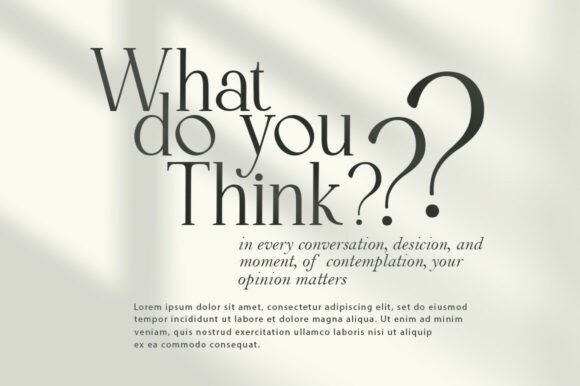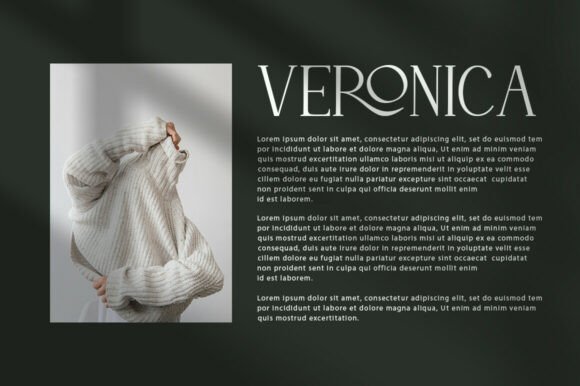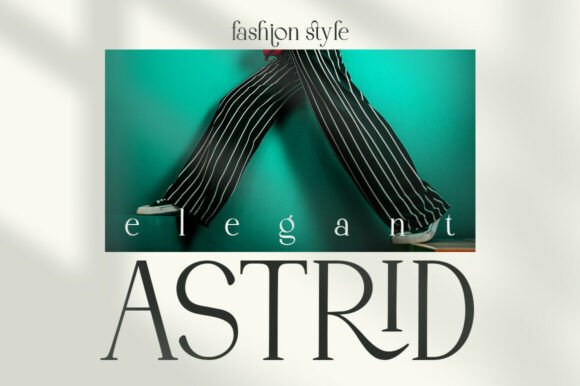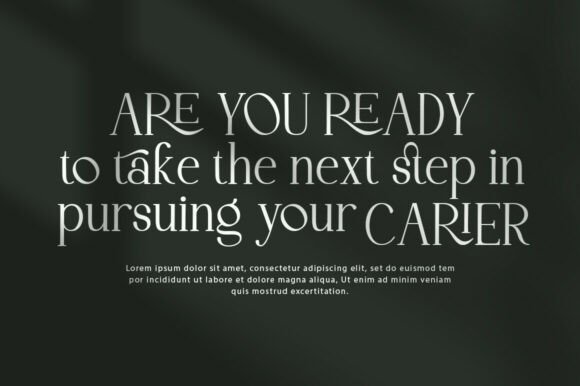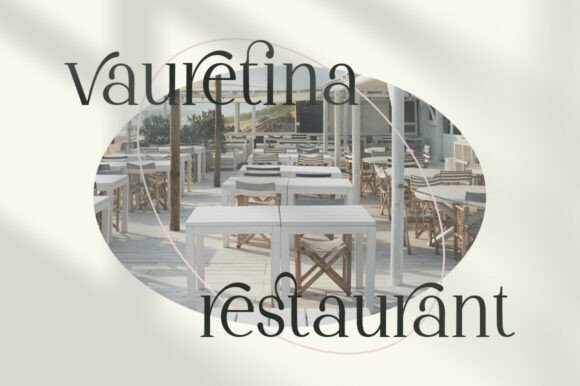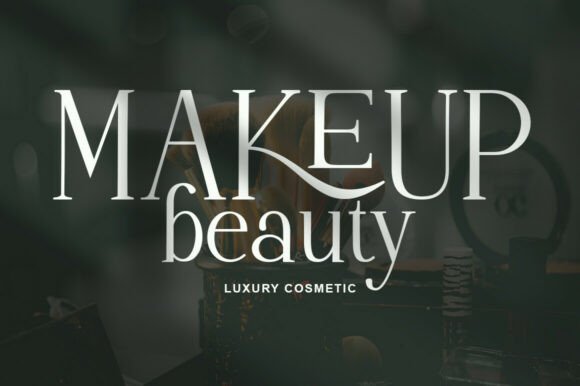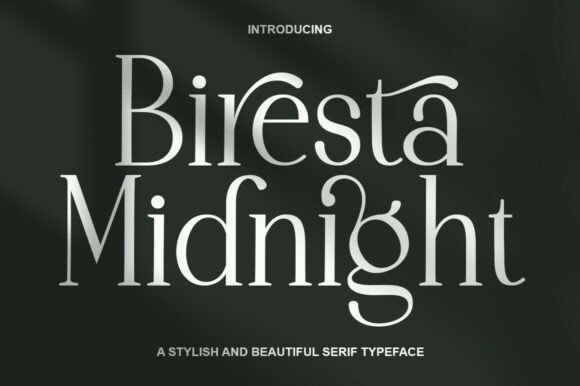
Introducing Biresta Midnight Font: A Timeless Serif Typeface
Are you a designer or crafter looking for a font that exudes elegance and sophistication? Look no further than Biresta Midnight Font. This beautiful and nostalgic serif typeface is perfect for adding a touch of class to any project. In this article, we’ll dive into the features and benefits of Biresta Midnight Font, and explore how it can elevate your design work.
A Beautiful and Nostalgic Serif Typeface
Biresta Midnight Font is a stunning serif typeface that boasts a unique blend of classic and modern elements. Its nostalgic feel makes it perfect for projects that require a touch of vintage charm, while its clean lines and precise curves ensure it remains legible and versatile. Whether you’re working on a logo, title, or body text, Biresta Midnight Font is sure to impress.
Stunning in Both Large and Small Sizes
One of the standout features of Biresta Midnight Font is its ability to look stunning in both large and small sizes. Whether you’re using it as display text or body text, this font remains clear and legible, making it perfect for a wide range of applications. From headlines and titles to paragraphs and descriptions, Biresta Midnight Font is the perfect choice for designers and crafters.
Available in Regular and Slant Versions
Biresta Midnight Font is available in two versions: Regular and Slant. The Regular version is perfect for projects that require a clean and classic look, while the Slant version adds a touch of sophistication and elegance. This versatility makes Biresta Midnight Font an excellent choice for designers who want to experiment with different styles and moods.
Perfect for Titles and Logos
Biresta Midnight Font is specifically designed for use in titles and logos, where its elegant and refined features can truly shine. Its unique blend of classic and modern elements makes it perfect for adding an extra touch of class to any project. Whether you’re working on a branding campaign, a website, or a print project, Biresta Midnight Font is sure to make a lasting impression.
Adding an Extra Touch of Class to Any Project
Biresta Midnight Font is more than just a font – it’s a design element that can elevate any project to the next level. Its elegant and refined features make it perfect for adding a touch of sophistication and class to any design. Whether you’re working on a luxury brand, a high-end product, or a creative project, Biresta Midnight Font is the perfect choice.
- Beautiful and nostalgic serif typeface: Biresta Midnight Font boasts a unique blend of classic and modern elements, making it perfect for projects that require a touch of vintage charm.
- Stunning in both large and small sizes: This font remains clear and legible in both large and small sizes, making it perfect for a wide range of applications.
- Available in Regular and Slant versions: Biresta Midnight Font is available in two versions, allowing designers to experiment with different styles and moods.
- Perfect for titles and logos: This font is specifically designed for use in titles and logos, where its elegant and refined features can truly shine.
In conclusion, Biresta Midnight Font is a timeless serif typeface that is perfect for designers and crafters looking to add a touch of elegance and sophistication to their projects. Its beautiful and nostalgic design, stunning legibility, and versatility make it an excellent choice for a wide range of applications. Whether you’re working on a title, logo, or body text, Biresta Midnight Font is sure to impress.
- What is Biresta Midnight Font?
- Biresta Midnight Font is a beautiful and nostalgic serif typeface that looks stunning in both large and small sizes.
- What versions is Biresta Midnight Font available in?
- Biresta Midnight Font is available in Regular and Slant versions.
- What is Biresta Midnight Font best used for?
- Biresta Midnight Font is best used for titles and logos, adding an extra touch of class to any project.